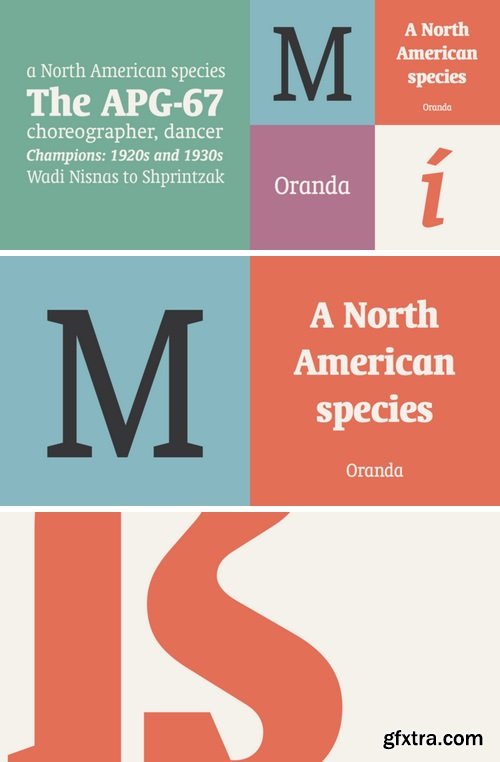
Oranda Font Family - 6 Fonts
Bitstream’s Oranda was designed by the noted Dutch designer Gerard Unger as a custom project for the European printer manufacturer, Océ, in 1986.